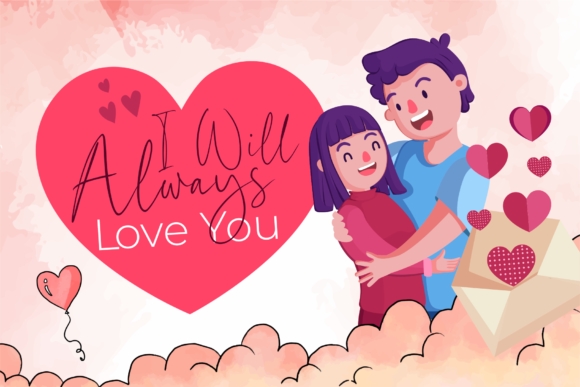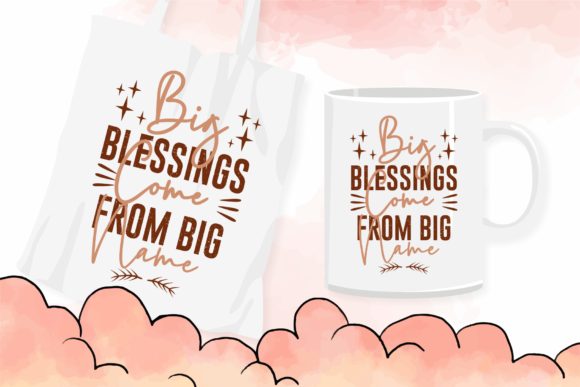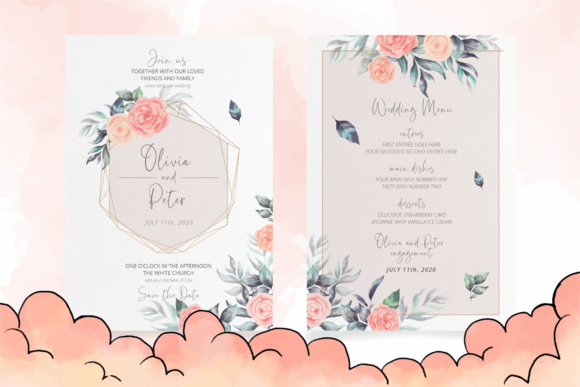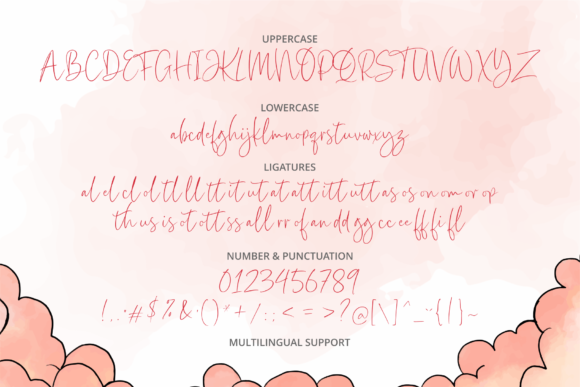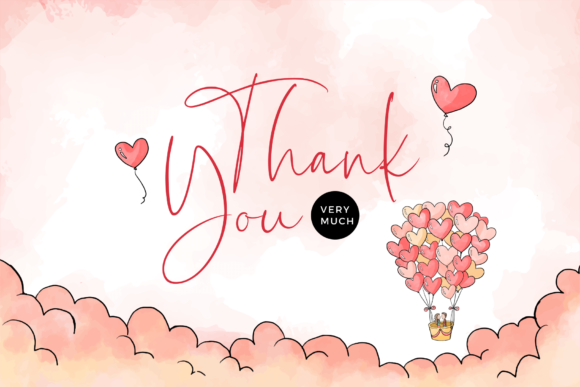
Jack Valentine Font
About Jack Valentine Font
Jack Valentine is a delightful and thin handwritten font that brings a touch of sweetness to any crafting project. Its unique and charming style makes it perfect for adding a personal and creative flair to your designs.
With its thin strokes and graceful letterforms, Jack Valentine exudes elegance and a playful vibe. Whether you’re creating greeting cards, invitations, logos, branding materials, or any other crafting project, this font will make your text stand out.
One of the standout features of Jack Valentine is its PUA encoding. This means you have easy access to all the glyphs and swashes, allowing you to explore a wide range of stylistic alternates and decorative elements. You can customize the appearance of your text and add extra flourishes and ornaments to enhance the overall design.
When using Jack Valentine, keep in mind that its thin strokes may require careful consideration when working with smaller sizes or detailed designs. Ensure that the text remains legible and readable by adjusting the size and spacing accordingly. You can also experiment with different letter combinations and ligatures to create a harmonious flow.
The versatility of Jack Valentine makes it suitable for various crafting projects, including DIY cards, scrapbooking, journaling, and more. Its delicate and sweet nature adds a touch of whimsy and romance, making it especially fitting for projects related to love, celebrations, or special occasions.
In summary, Jack Valentine is a thin and sweet handwritten font that brings a unique touch to any crafting project. Its PUA encoding provides easy access to a range of glyphs and swashes, allowing for customization and creativity. Embrace the elegance and playfulness of Jack Valentine and let it add a touch of charm to your designs.